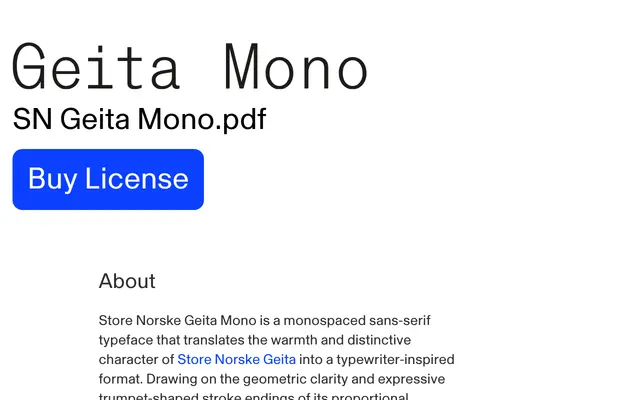
Store Norske Geita Mono
A monospaced companion to Geita by Arve Båtevik, carrying the original's geometric structure and trumpet-shaped stroke endings into a typewriter-inspired format across six weights with italics.
Designed by Arve Båtevik, Geita Mono translates the proportional Geita's geometric clarity and distinctive stroke endings into a fixed-width format suited to coding, editorial and branding contexts. Six weights with matching italics give the family useful range, from functional code display to more expressive typographic applications. Broad Latin coverage spans Western, Central and Northern European scripts including Nordic and Sami languages, backed by a thorough set of OpenType features including stylistic alternates for the lowercase a, zero and percentage forms.
A monospaced sans-serif with geometric clarity and distinctive trumpet-shaped stroke endings, drawing directly from its proportional counterpart Geita; the typewriter-inspired construction places it firmly in the geometric monospaced category.